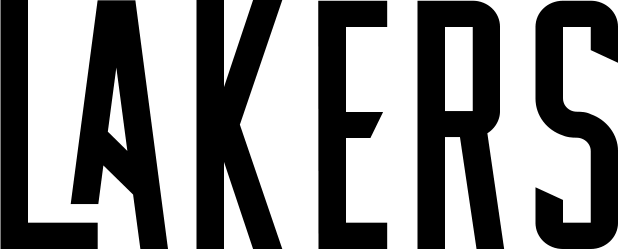
Lakers Font
If you are interested in a casual and friendly context, then we suggest a condensed font like Lakers. With its tall and cutting-edge letter styling, this font makes a perfect choice for so many different projects like logos, product packaging, billboards, and posters.
This font comes with an extraordinary collection of characters containing the uppercase of the alphabet, the numbers, and the punctuation marks apart from the lowercase.
Introducing Lakers – multipurpose condensed uppercase clean sans serif typeface. Lakers Free Font is a classic all-caps sans serif font whic may be used for absolutely different purposes – from the design of cute postcards to use in a rough vintage old-school logos.